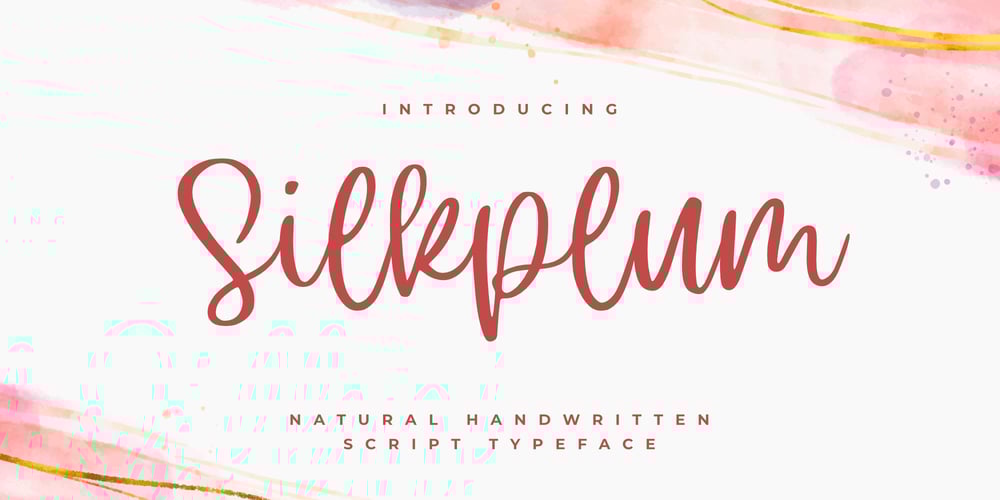
Silkplum
Silkplum font
Silkplum Font Family was designed by Ardian Nuvianto and published by Ardian Nuvianto. Silkplum contains 1 styles and family package options. Silkplum is a lovely script font featuring charming, playful characters that seem to dance along the baseline. Add this font to your most creative ideas, and notice how it makes them stand out!